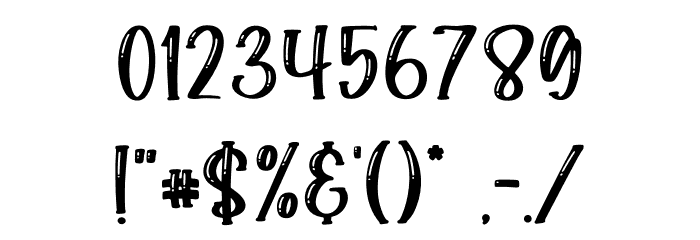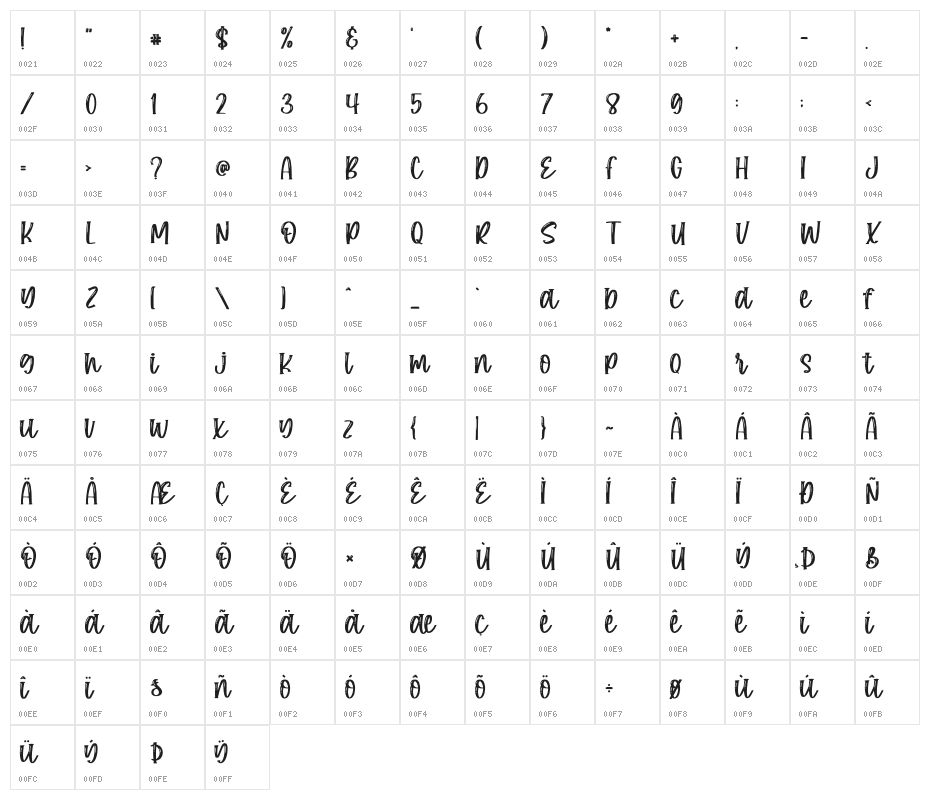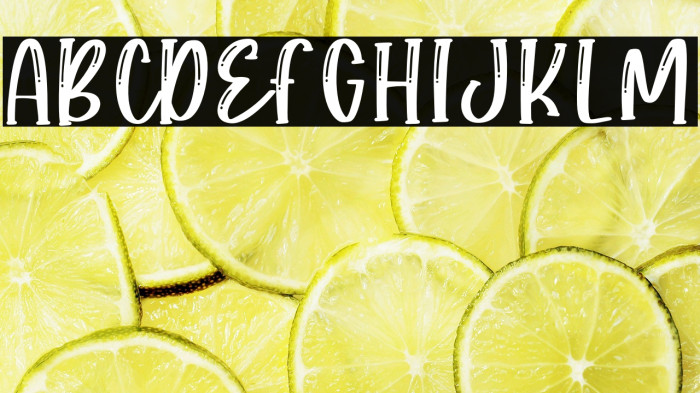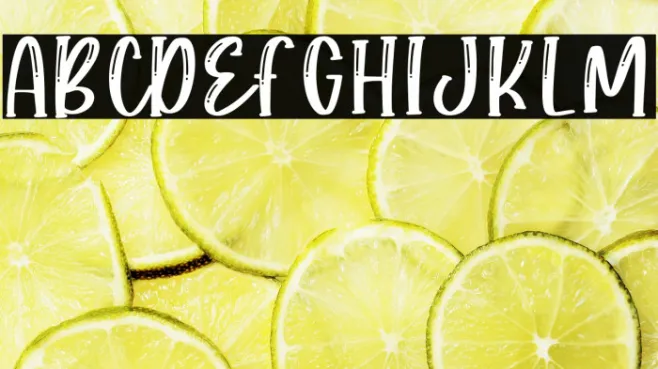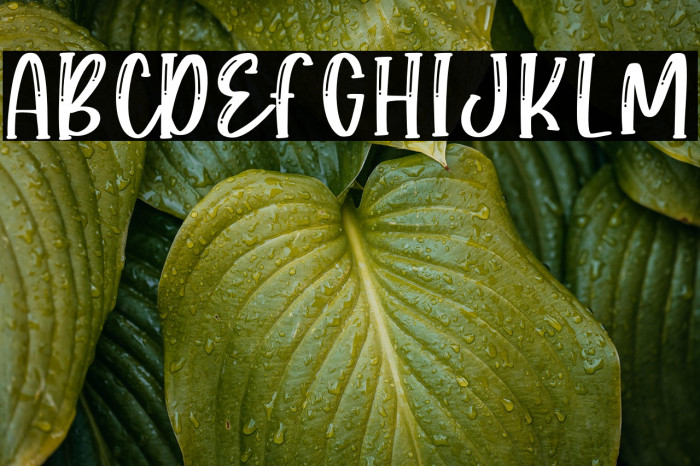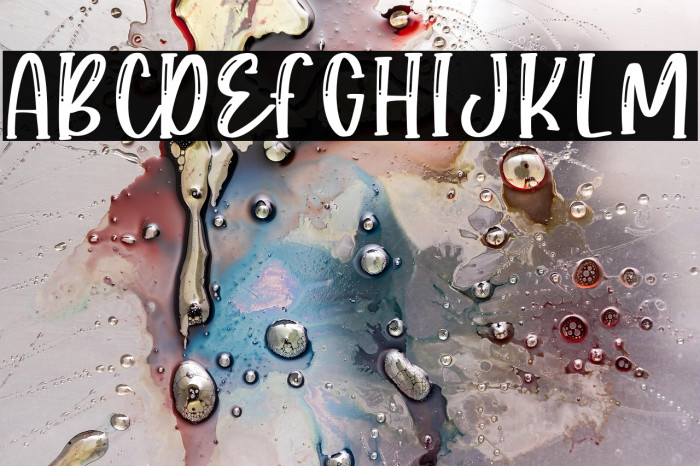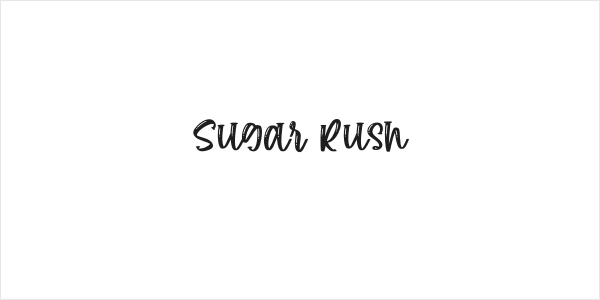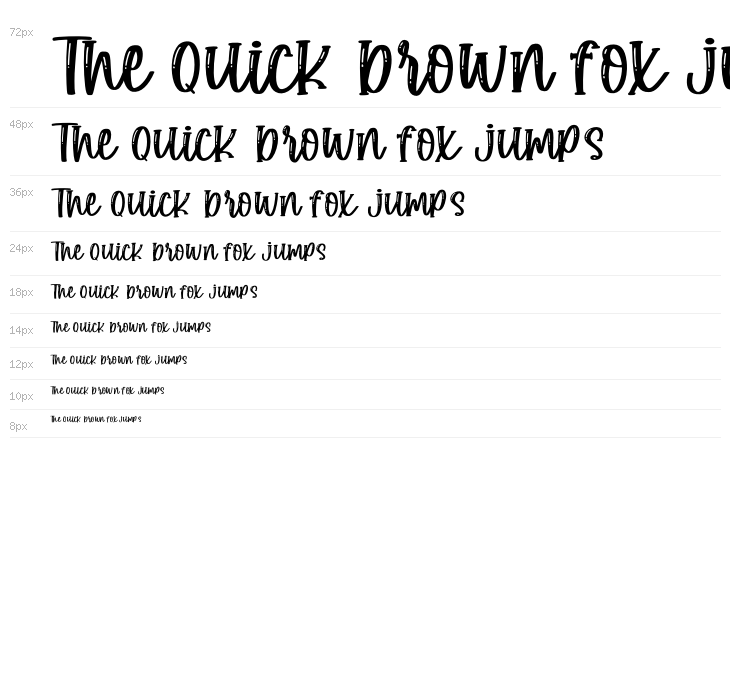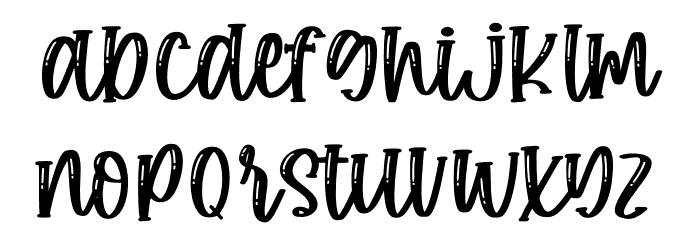
Sugar Rush Font
Sugar Rush Description
This playful and energetic font features a handwritten style with a bold and lively appearance. The characters are crafted with a brush-like texture, giving them a dynamic and informal feel. The uppercase and lowercase letters maintain a consistent flow, with slightly exaggerated curves and loops that add to the font's whimsical charm. The numerals and special characters complement the overall style, ensuring versatility across different uses. Its unique personality makes it suitable for projects that require a touch of creativity and fun.
| Overall Style | Playful and Energetic |
| Proposed Projects | Ideal for greeting cards, children's book covers, playful branding, and social media graphics. |